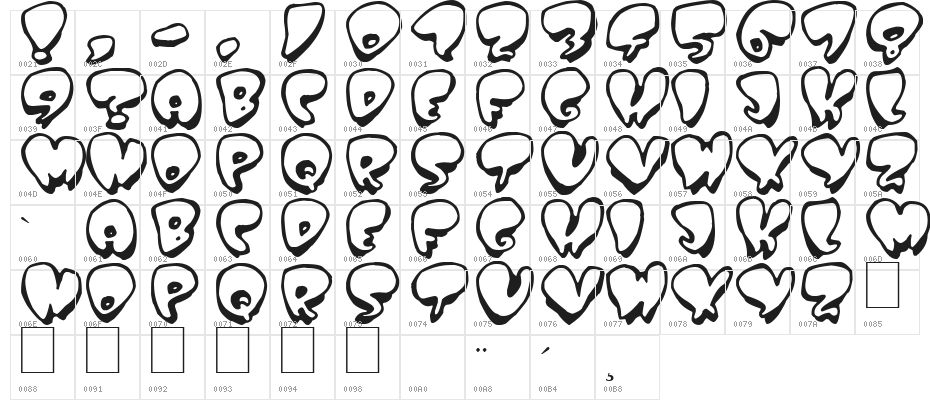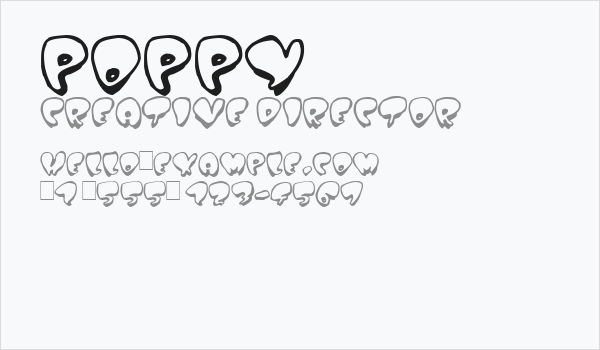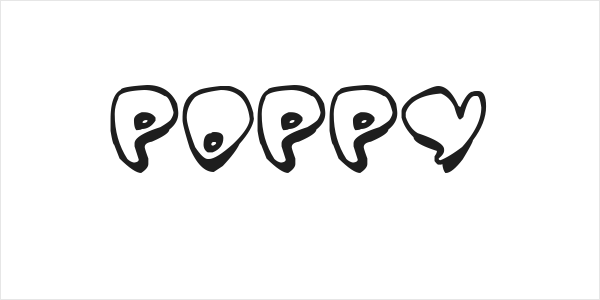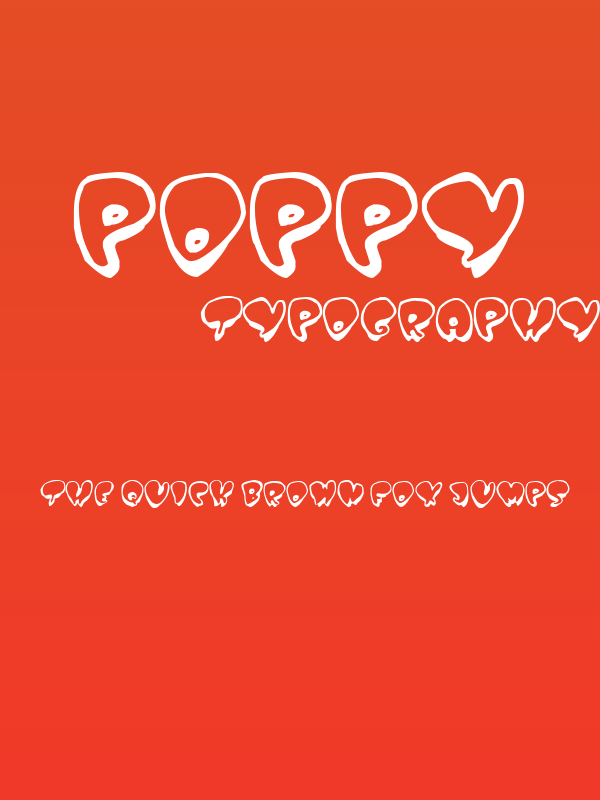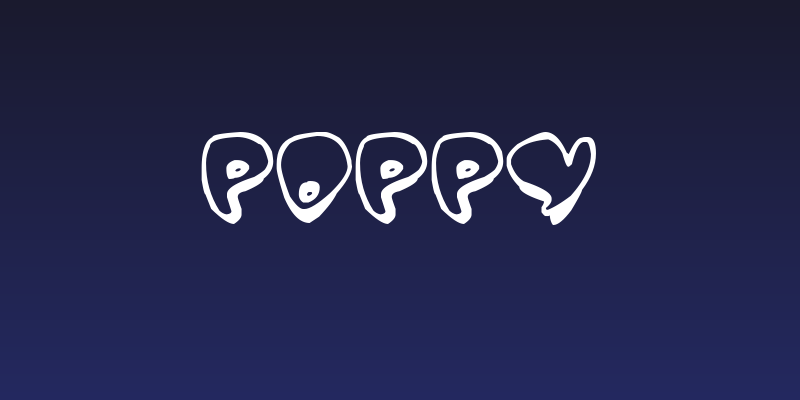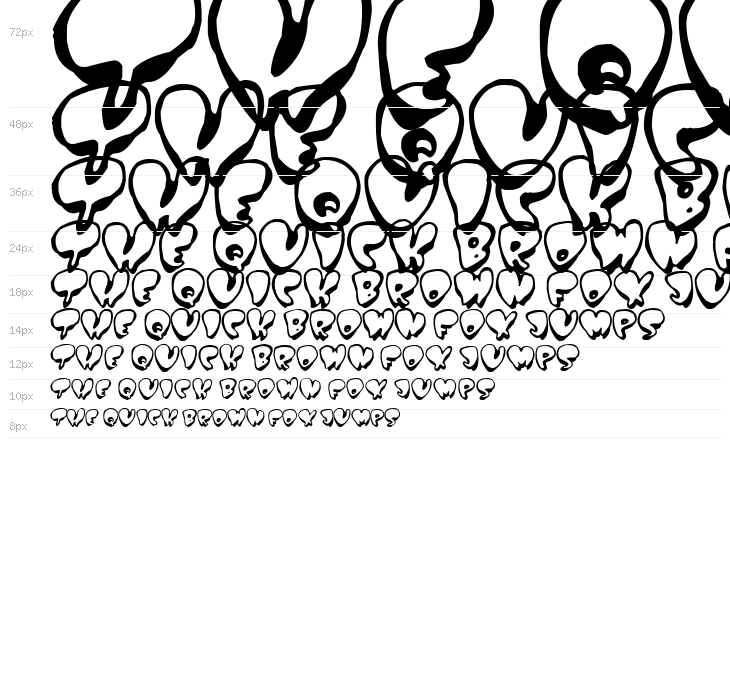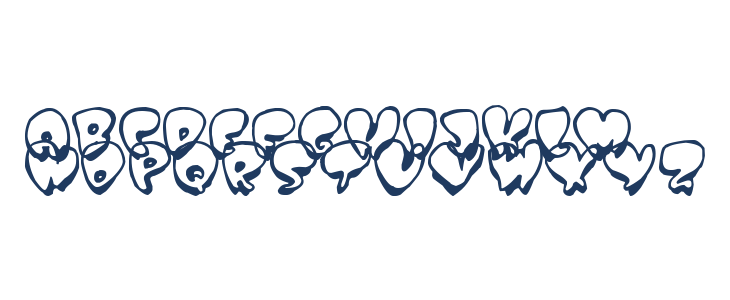
Poppy Font
Poppy Description
This playful and bold font features a unique bubble-like design with thick, rounded edges and a whimsical style. Each character is distinct with a slightly irregular shape, giving it a hand-drawn appearance. The font's thick strokes and exaggerated curves create a sense of fun and creativity, making it ideal for projects that require a lively and informal touch. The characters are closely spaced, enhancing the cohesive and compact look. The font's high contrast between the thick strokes and the negative space adds to its visual impact, making it stand out in any design.